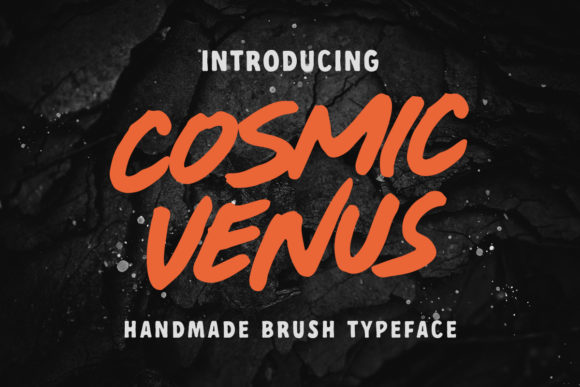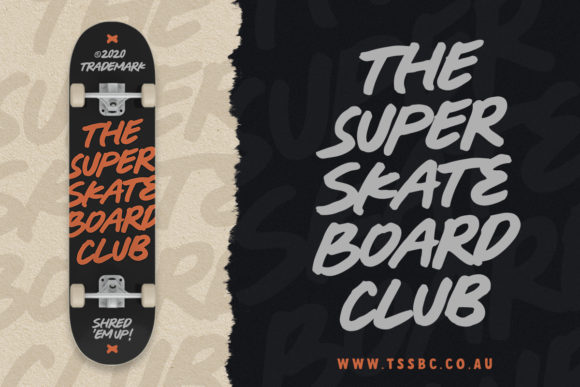
About Cosmic Venus Font
Cosmic Venus is a brushed typeface with a bold and strong feel. It was perfectly made to be applied on headlines, labels, logos, magazines, books, packaging, fashion, stationery, novels, labels and so much more.